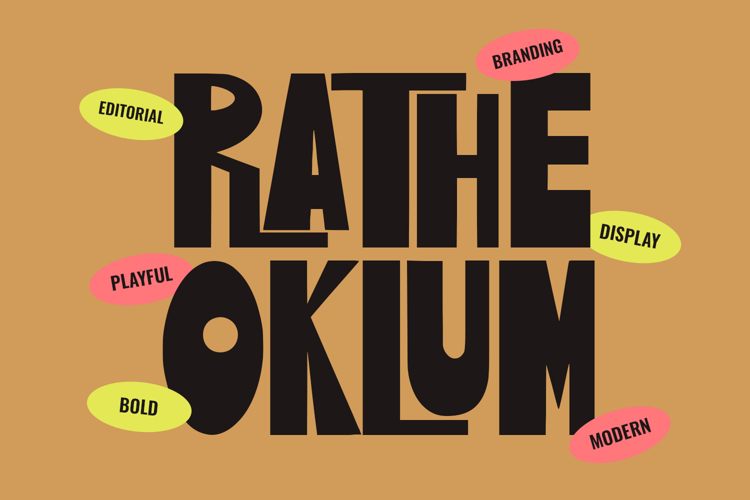
Rathe Oklum Modern Bold Display Font Playful
Make a Bold Statement with Rathe Oklum!
Elevate your design projects with Rathe Oklum, a powerhouse display font designed to command attention. This typeface seamlessly blends heavy, architectural structures with quirky, experimental shapes, making it the perfect choice for designers looking to break the mold.
Whether you are working on a high-end editorial layout, a vibrant branding identity, or eye-catching social media graphics, Rathe Oklum delivers a perfect balance of modern sophistication and playful energy. Its unique character widths and tight kerning capabilities create a rhythmic, textured look that works wonders for posters, headlines, and fashion brands.